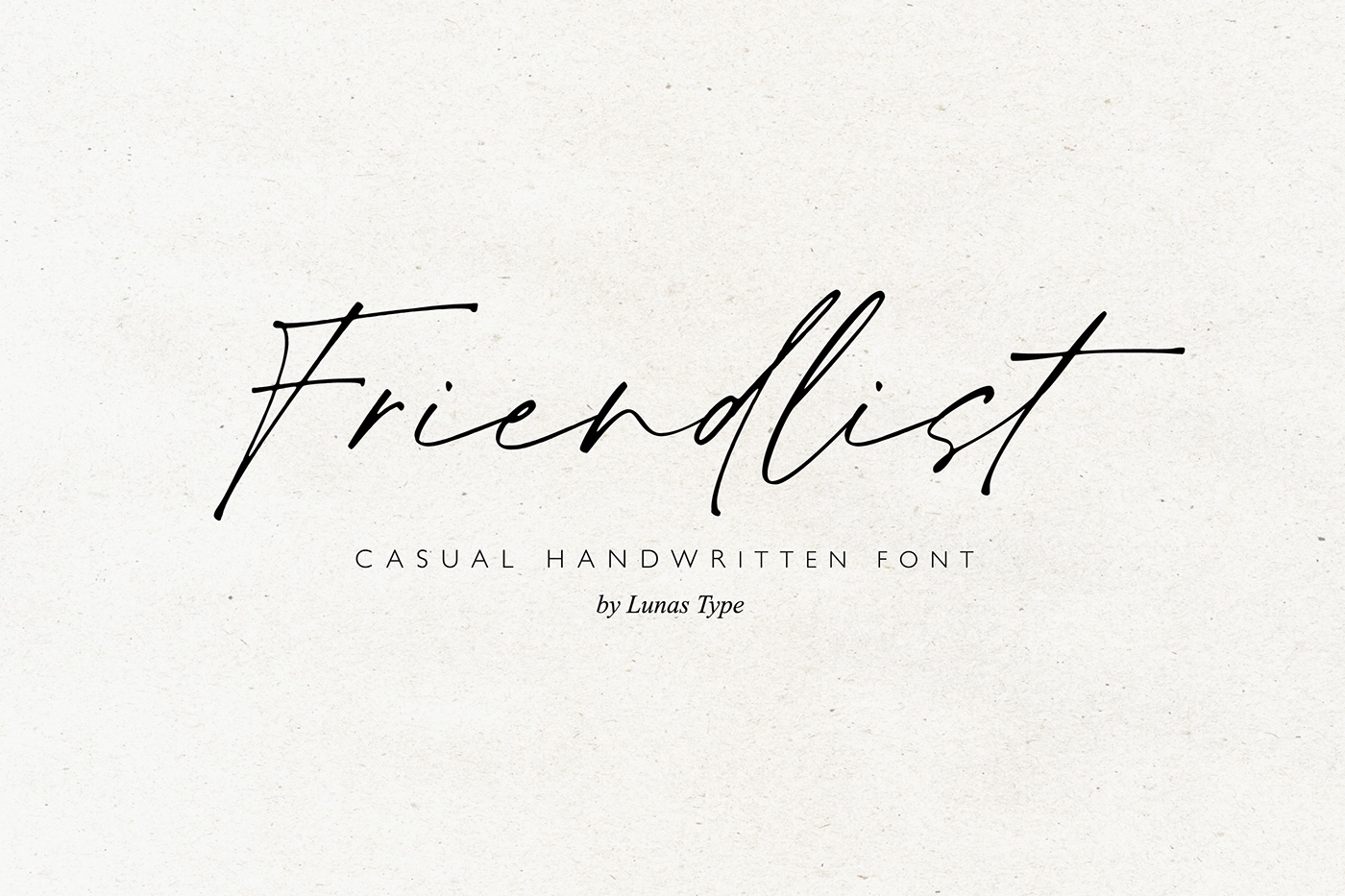
Introducing, Friendlist!
Friendlist is a casual modern handwritten font.
Friendlist comes with a lot of ligatures and ending swash that make your text is more charming and more expression.
Friendlist brings natural element to your design, it's perfect for wedding, stationery, logos, social media quotes, branding identity, and many more.
- Ending Swashes
- Numeral & Punctuation.
- ligatures.
- Multilingual Support.